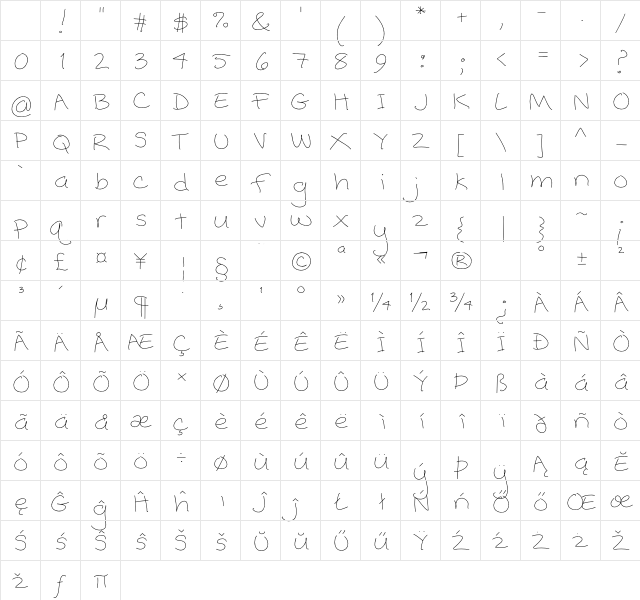
Popcorn Mountain Std Thin is a composed and adaptable typeface that performs quietly and consistently across a wide range of design contexts. Its slender proportions lend an understated elegance to any composition.